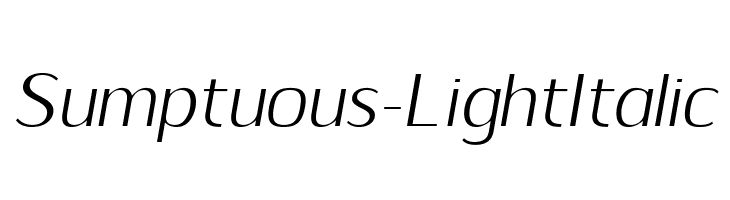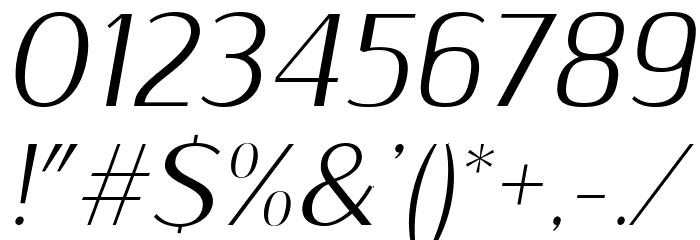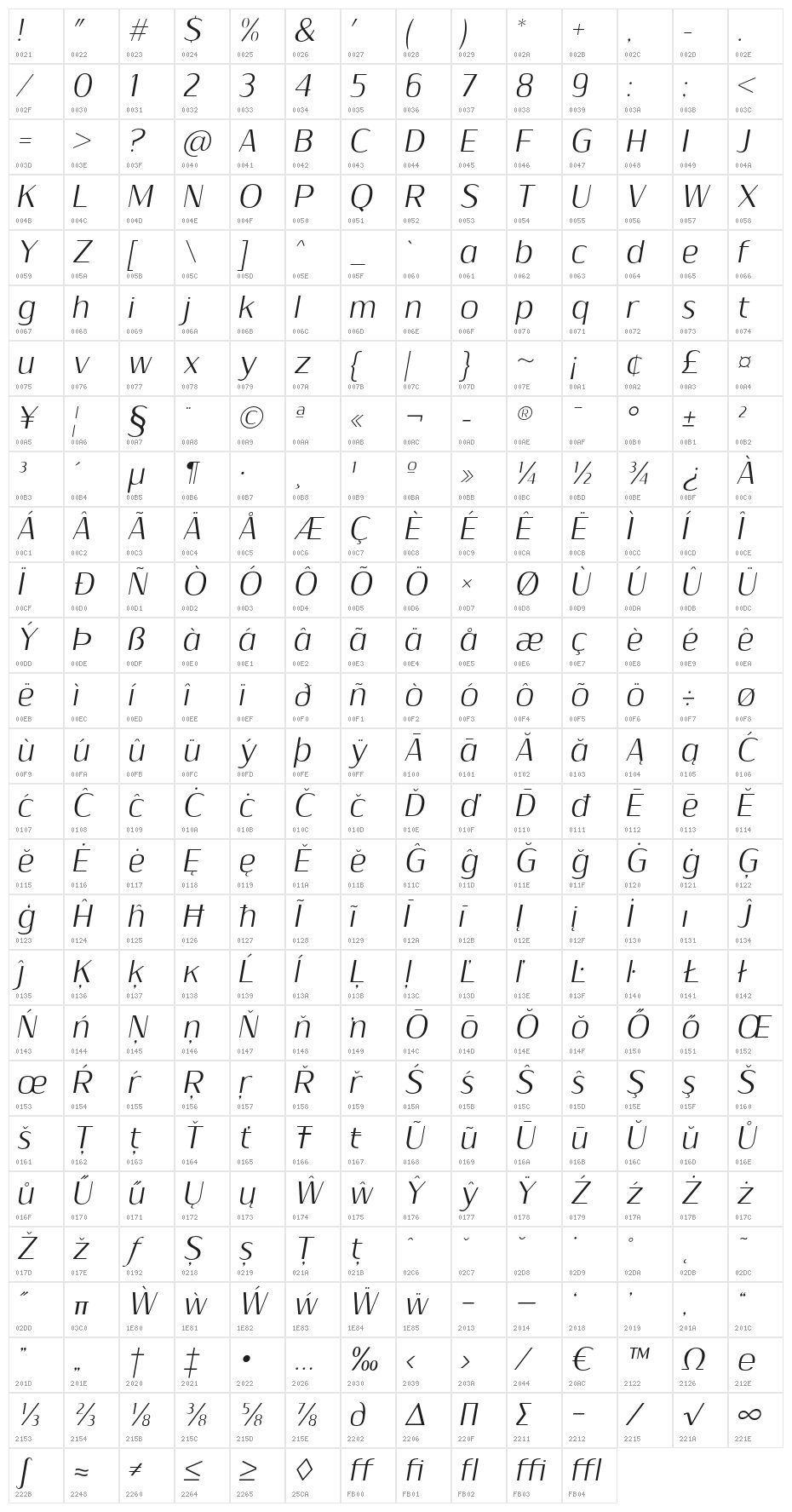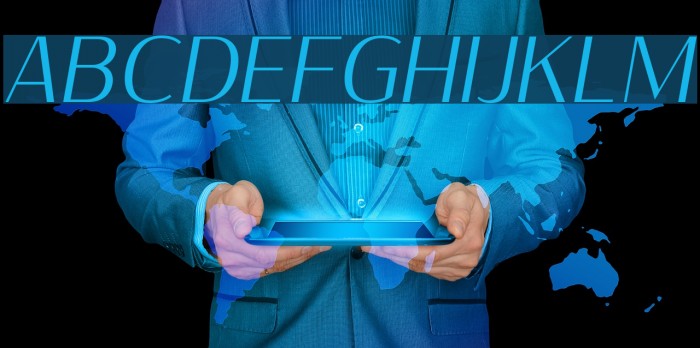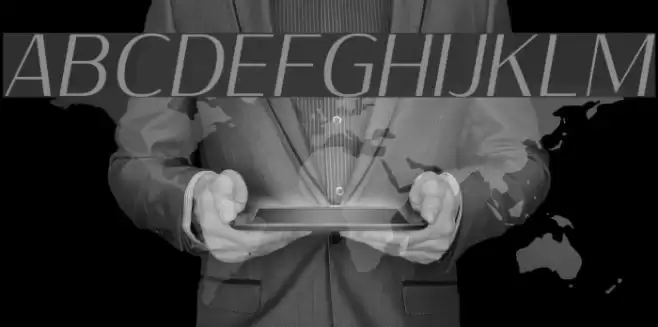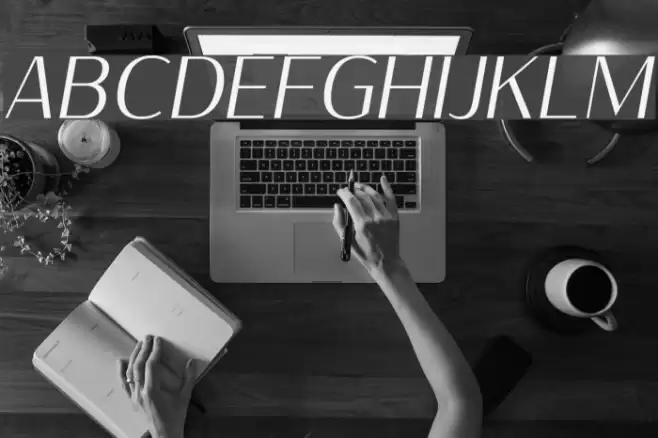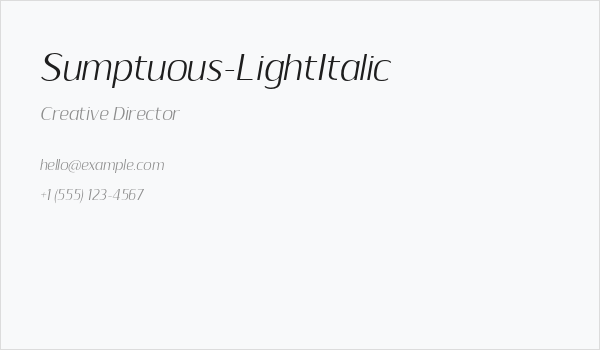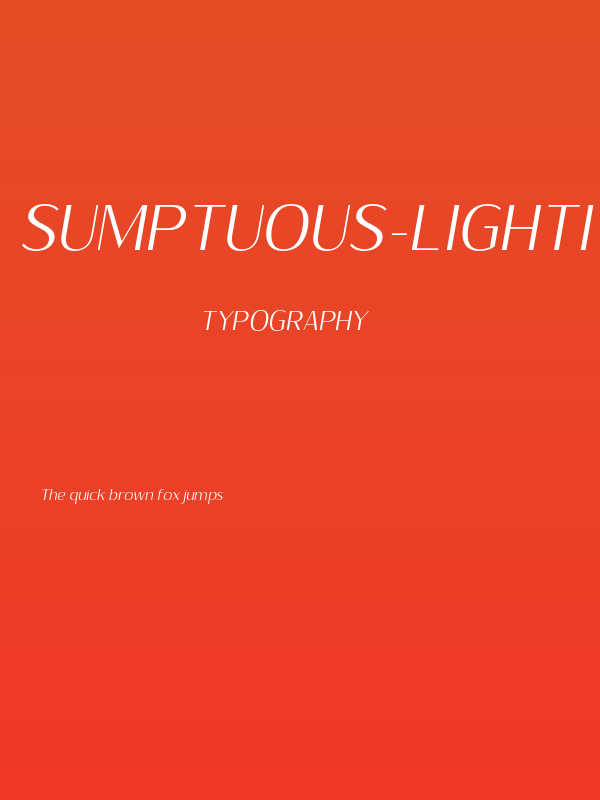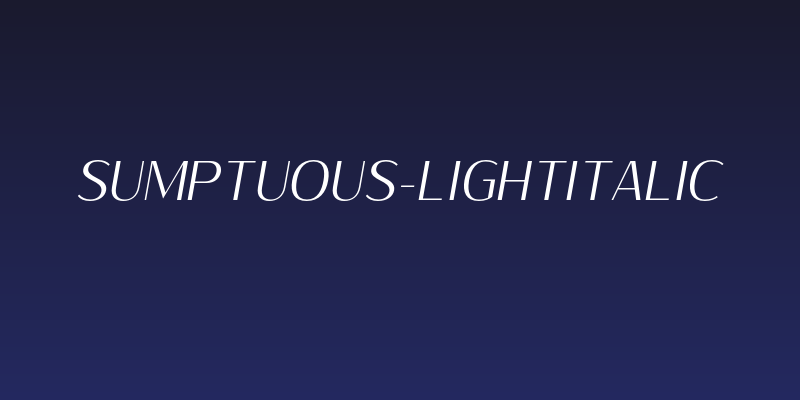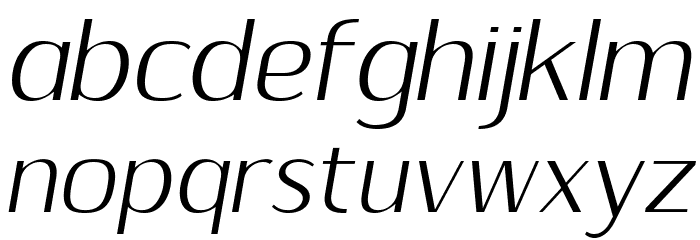
Sumptuous-LightItalic Font
Sumptuous-LightItalic Description
This font presents a sleek and elegant design with a light and italicized style, offering a modern and sophisticated appearance. The characters are slightly elongated, providing a sense of movement and fluidity. The strokes are thin and consistent, contributing to a clean and refined look. The font maintains a harmonious balance between the letters, ensuring readability while adding a touch of elegance. The numerals and special characters are designed to complement the alphabet, maintaining the overall aesthetic. This font is ideal for projects that require a touch of sophistication and modernity.
| Proposed Projects | Ideal for fashion magazines, luxury branding, elegant invitations, and modern web design. |